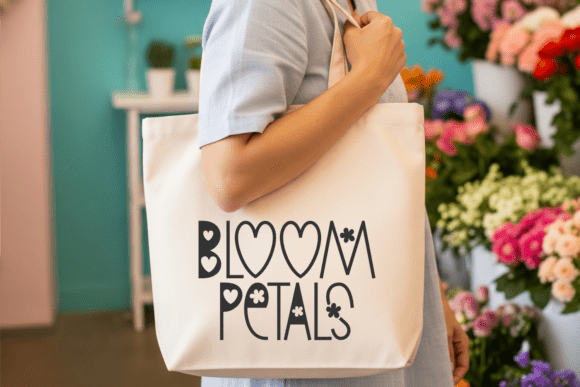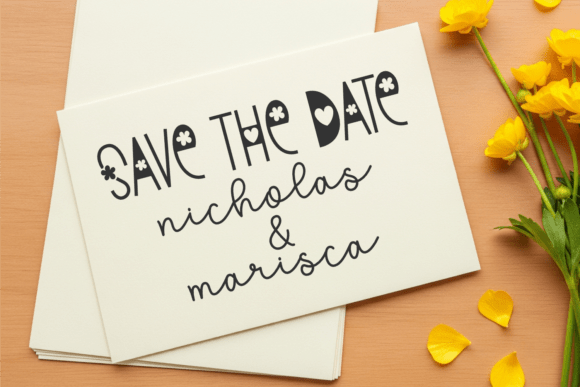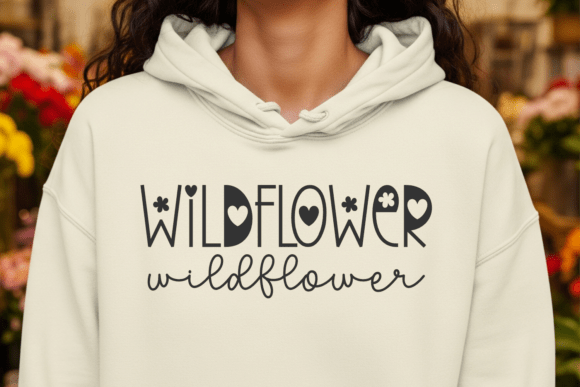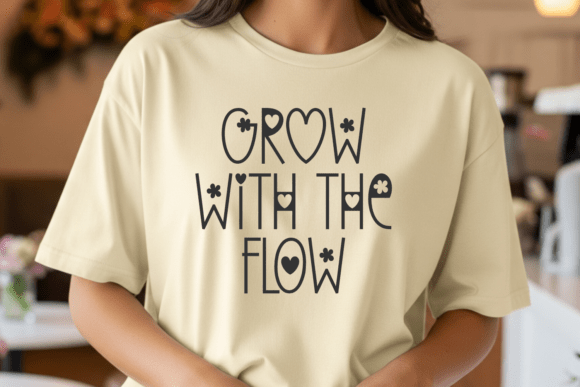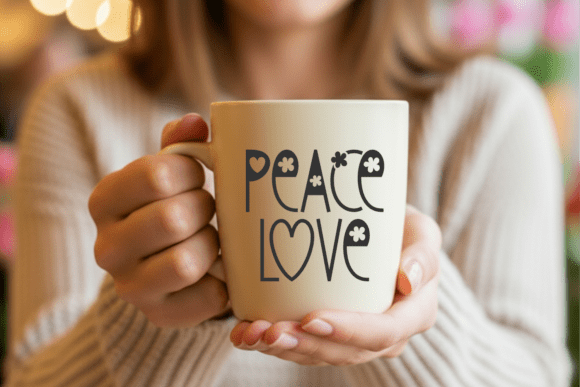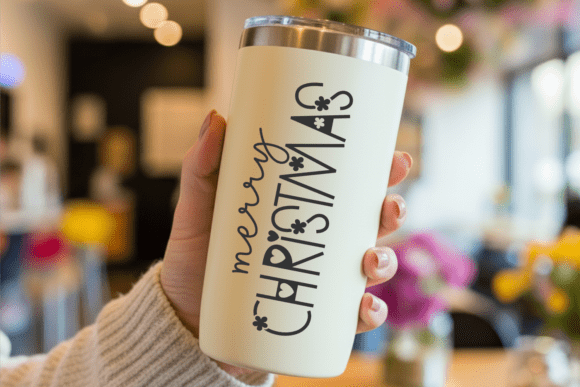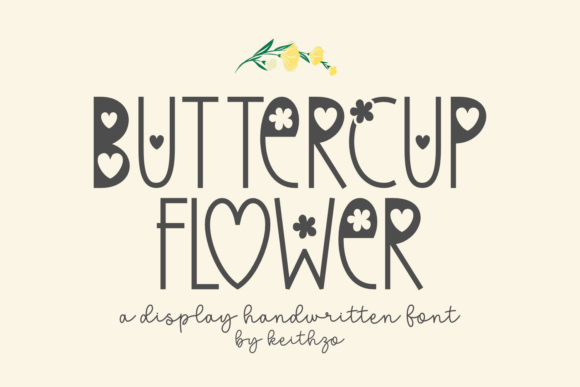
Introducing Buttercup Flower: A Display Handwritten Font
Say hello to Buttercup Flower, a delightful and charming new font that brings a touch of warmth and whimsy to all your creative projects. This display handwritten font features a unique design where certain letterforms are replaced with playful hearts and delicate flowers, giving it an irresistibly cute and joyful personality.
A Design Moment of Inspiration
I still remember the design project that led me to discover Buttercup Flower. I was working on a branding project for a small bakery, and I needed a font that would capture the warmth and friendliness of their brand. I had tried several fonts, but none seemed to fit the bill. That was when I stumbled upon Buttercup Flower, and it instantly became the perfect fit. The playful hearts and flowers added a touch of sweetness that perfectly matched the bakery’s personality.
What I Love About Buttercup Flower
• ✨ Unique and playful design with built-in heart and flower characters
• ✅ Perfect for a wide range of applications, from apparel to greeting cards
• 💕 Handwritten style with clean lines, creating a personal and authentic vibe
• 🎉 Ideal for branding, product packaging, t-shirts, mugs, invitations, and more
While Buttercup Flower is an amazing font, there are a few quirks to consider:
• 🤔 Some letterforms may be a bit tricky to read at smaller sizes, so it’s best to use it for display purposes.
• ⚠️ The font may not work well with very formal or corporate designs, as it’s more suited for playful and whimsical projects.
The designer behind Buttercup Flower was inspired by the beauty of nature and the joy of creating something handmade. They wanted to create a font that would capture the warmth and whimsy of a handwritten design, while also being versatile and easy to use.
A: Buttercup Flower is perfect for branding projects that require a playful and whimsical touch. Use it for logos, business cards, and packaging to create a consistent and recognizable brand identity.
A: While Buttercup Flower is a beautiful font, it’s best suited for display purposes. It’s not recommended for body text, as it may be difficult to read at smaller sizes.